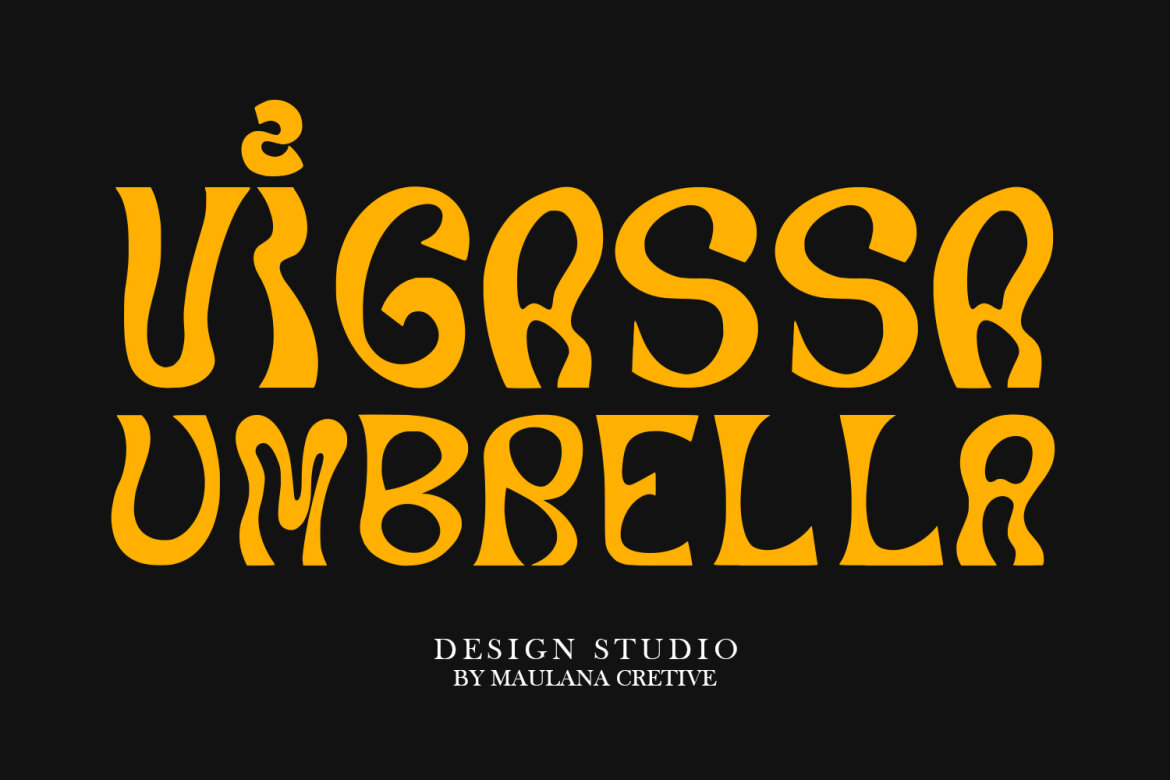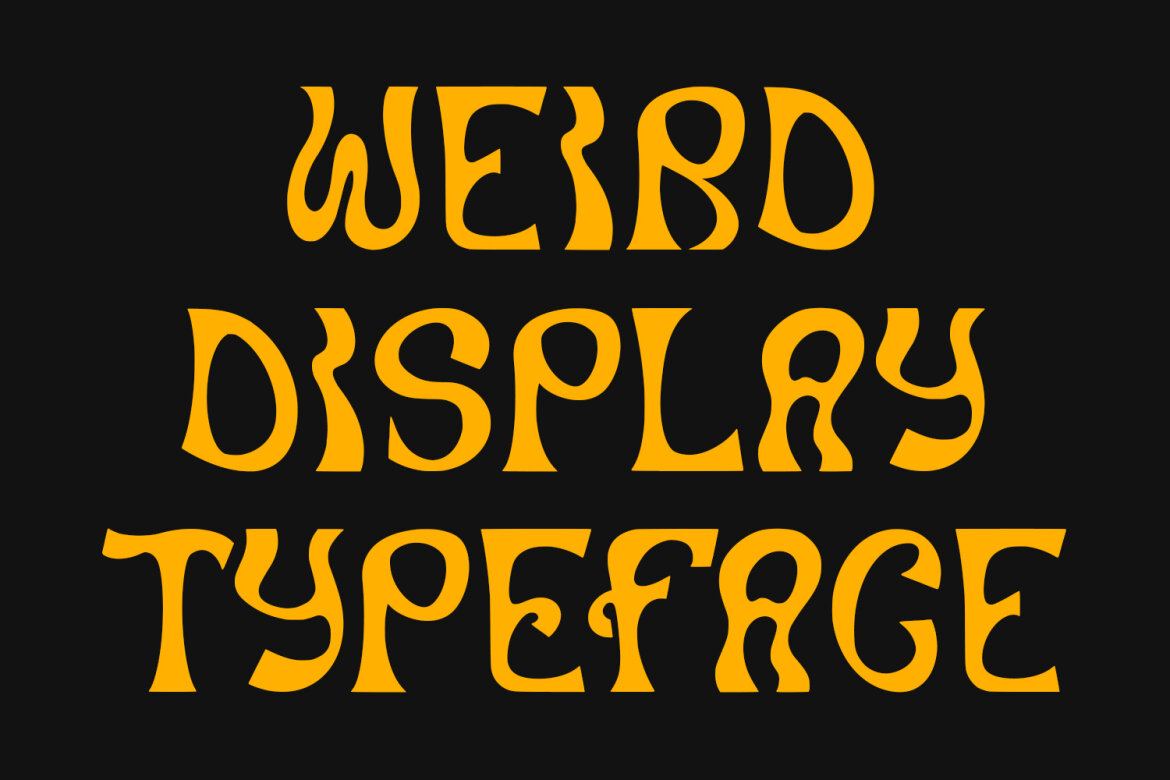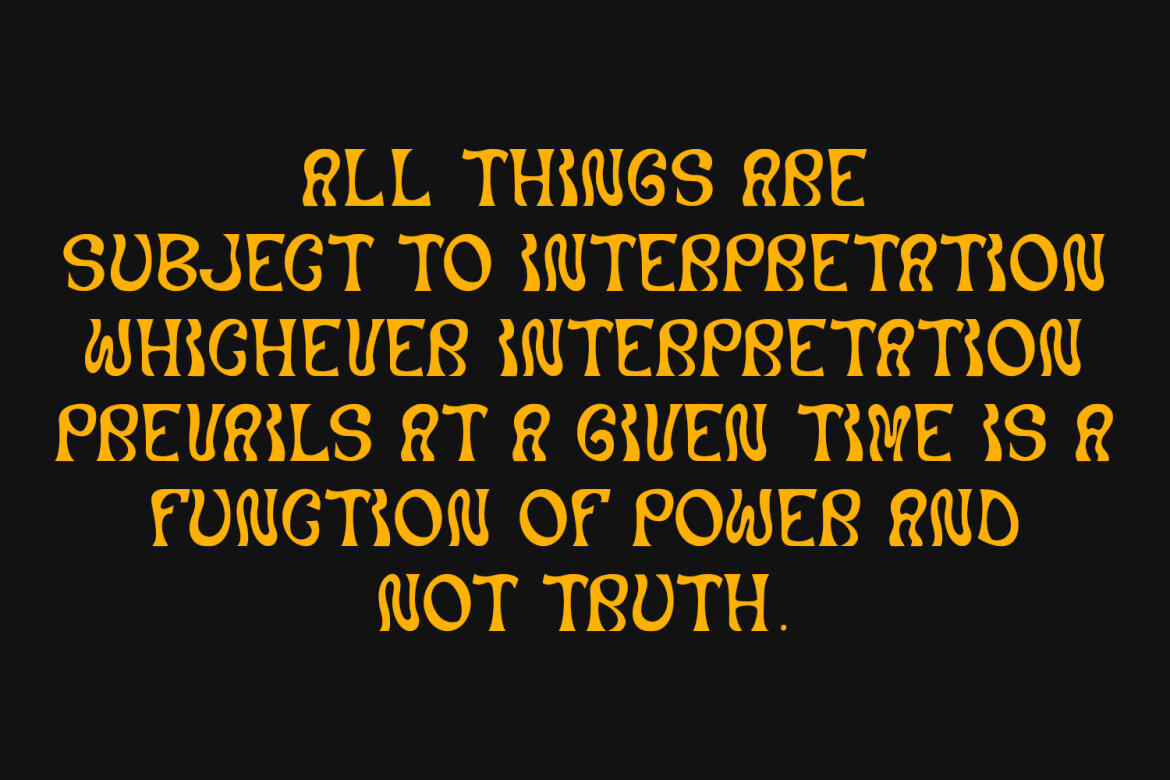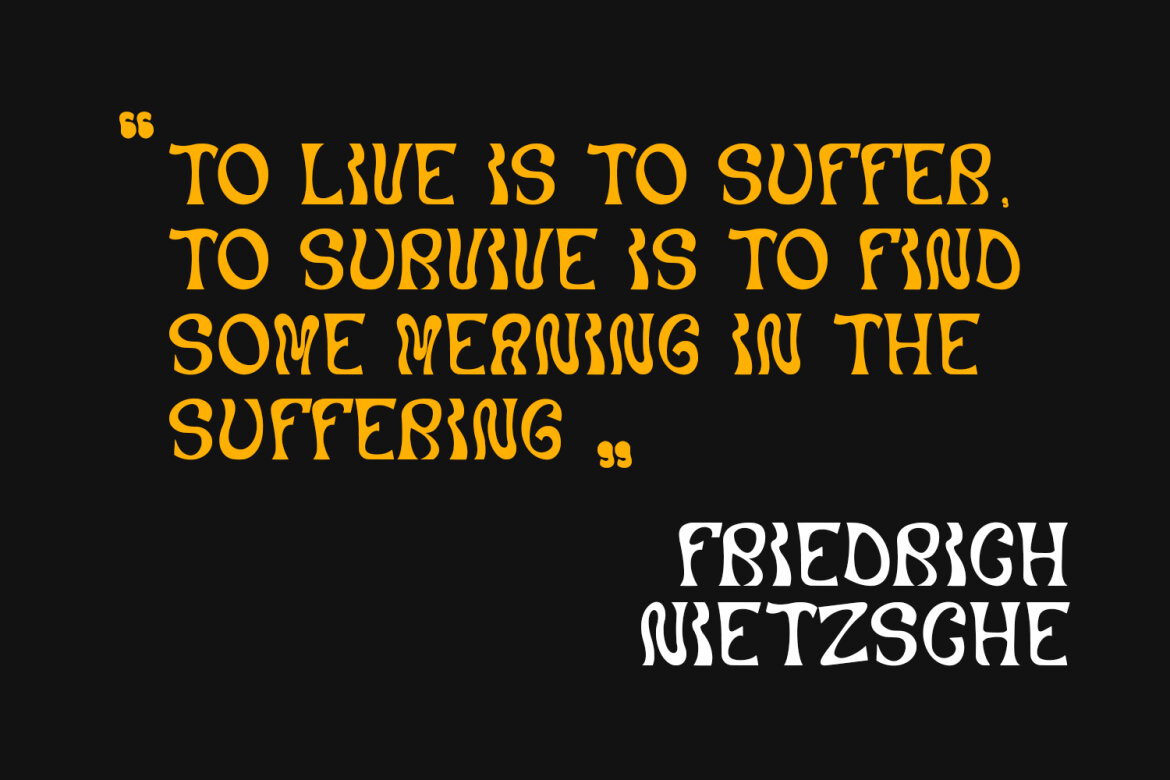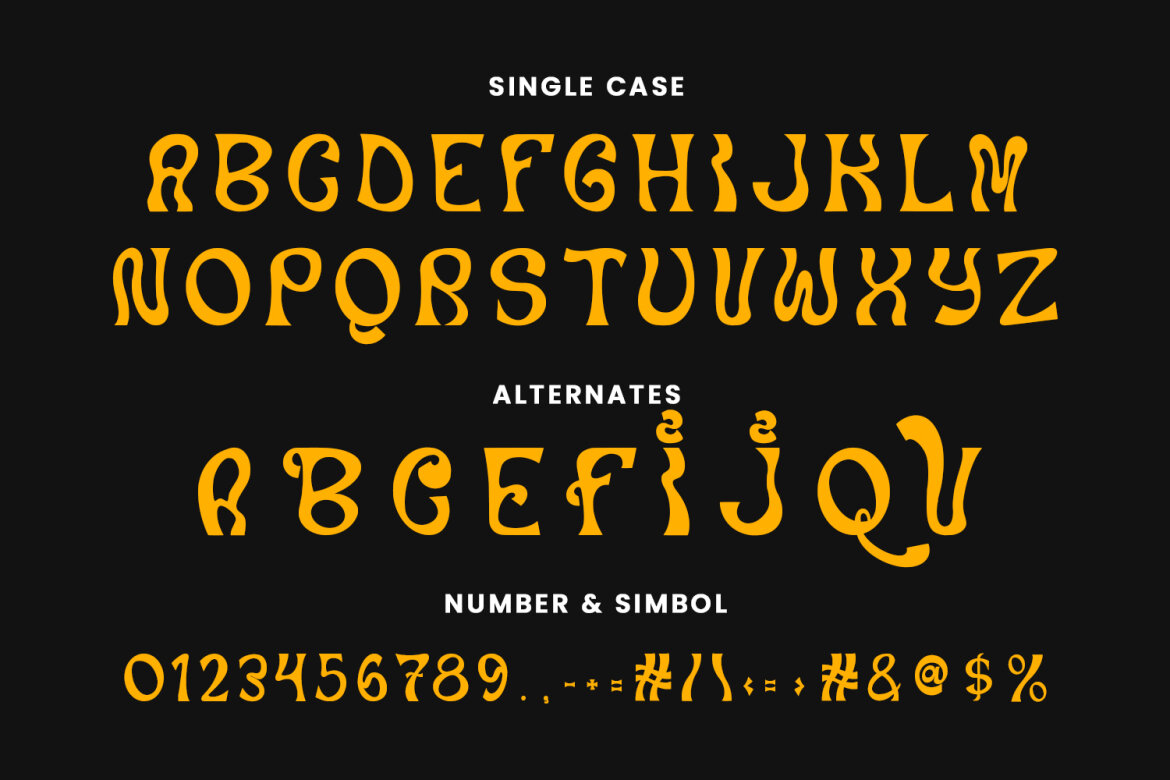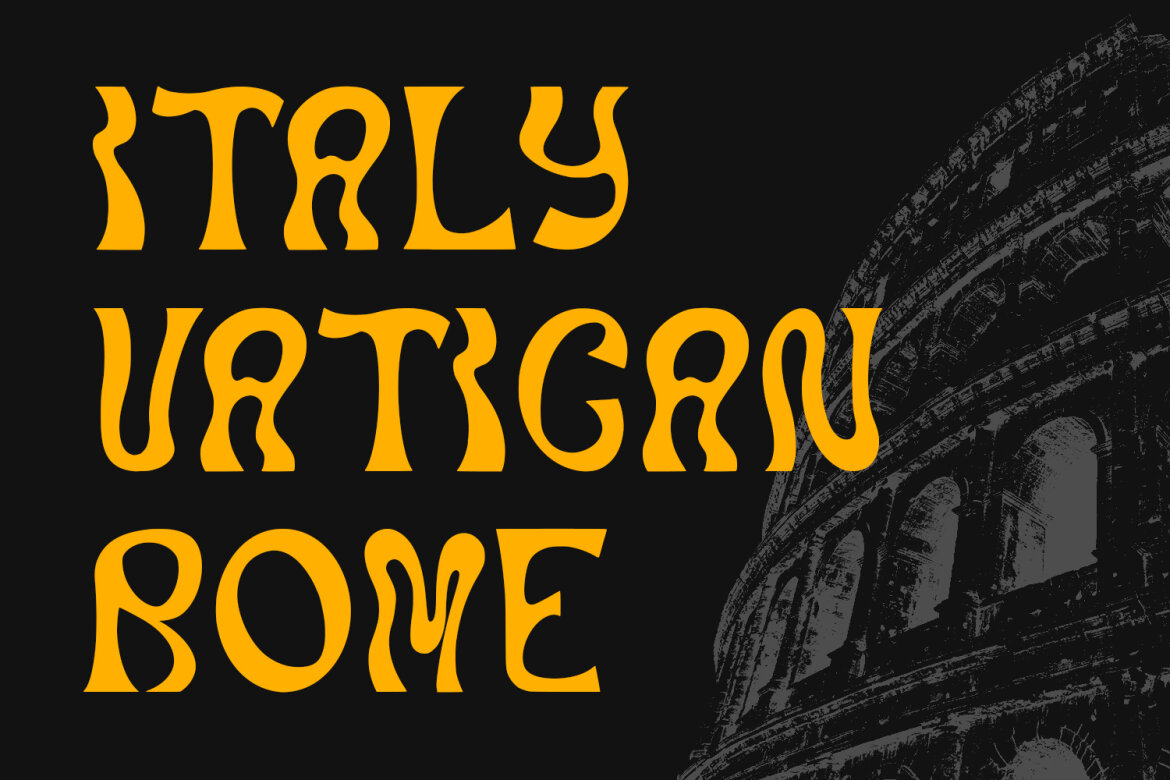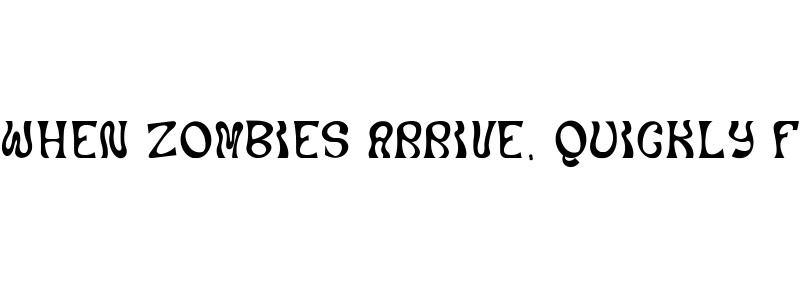
Qecabiv Experimental FREE Font
Qecabiv experimental display font. Bold stroke, fun character with a bit of ligatures and alternates. To give you an extra creative work. Qecabiv experimental display font support multilingual more than 100+ language. This font is good for logo design, Social media, Movie Titles, Books Titles, a short text even a long text letter and good for your secondary text font with script or serif. Make a stunning work with Qecabiv experimental display font.